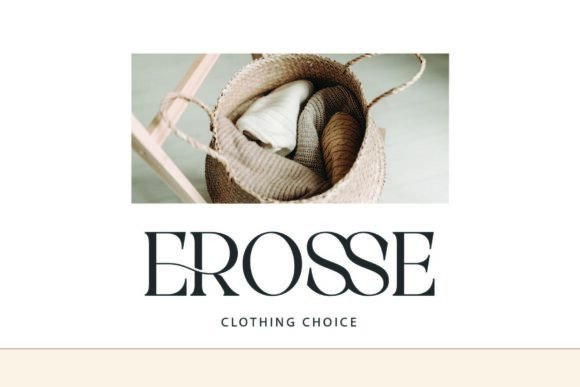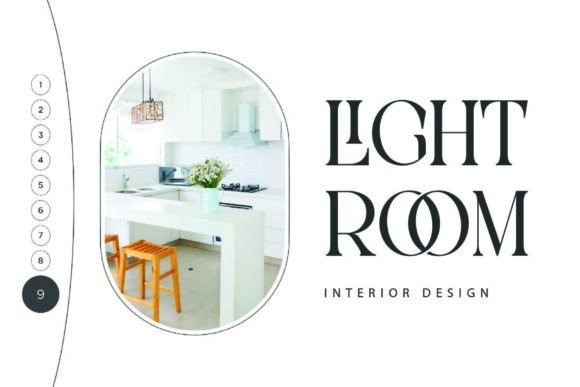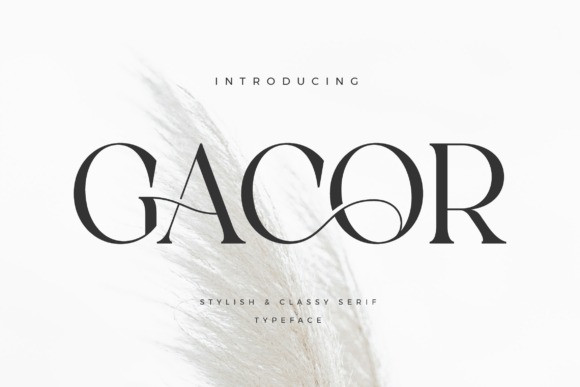
Gacor Font
Gacor Font inspired by the famous minimalist logo perfect for the purposes of designing templates, brochures, videos, advertising branding, logos and more.